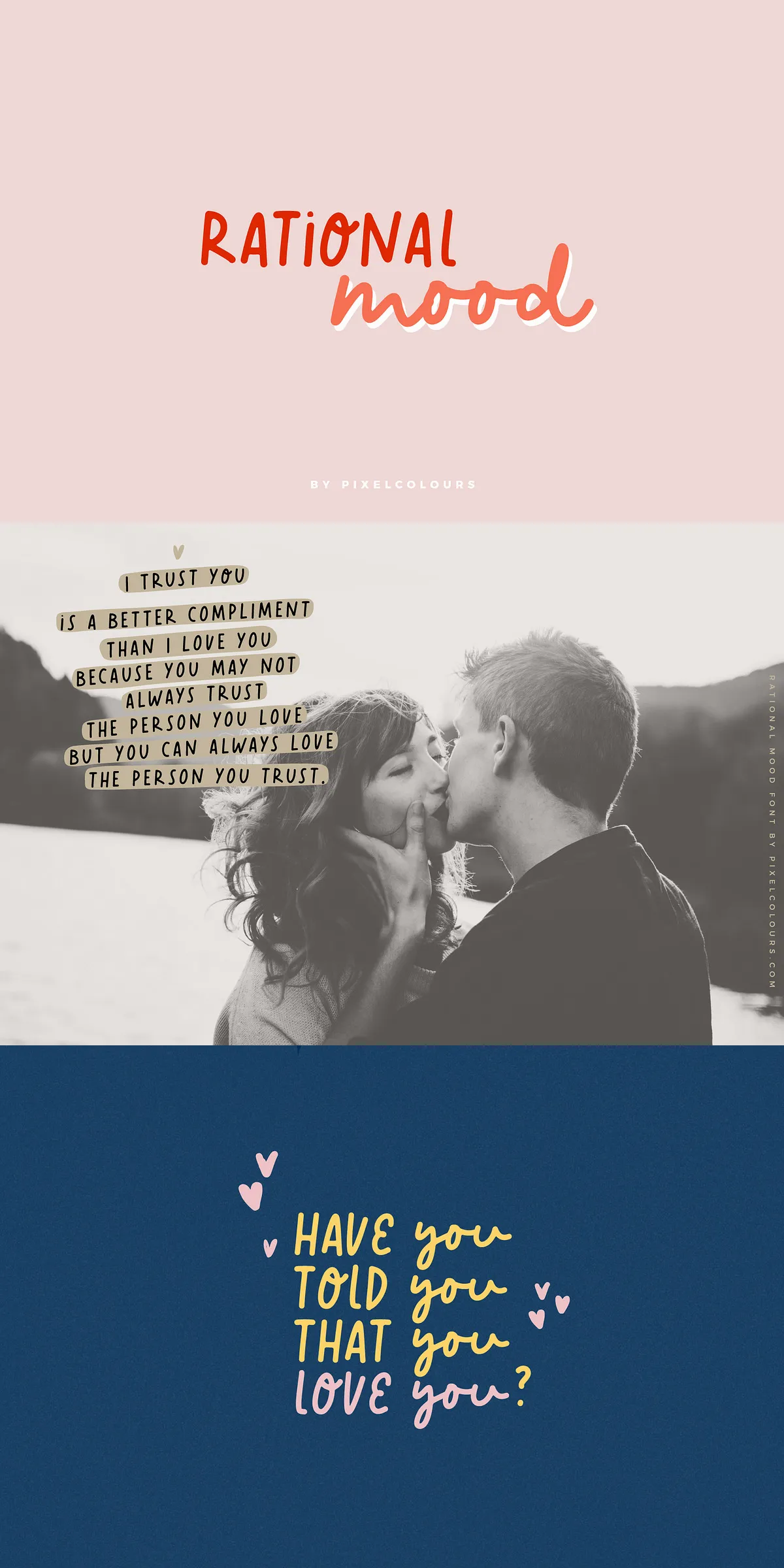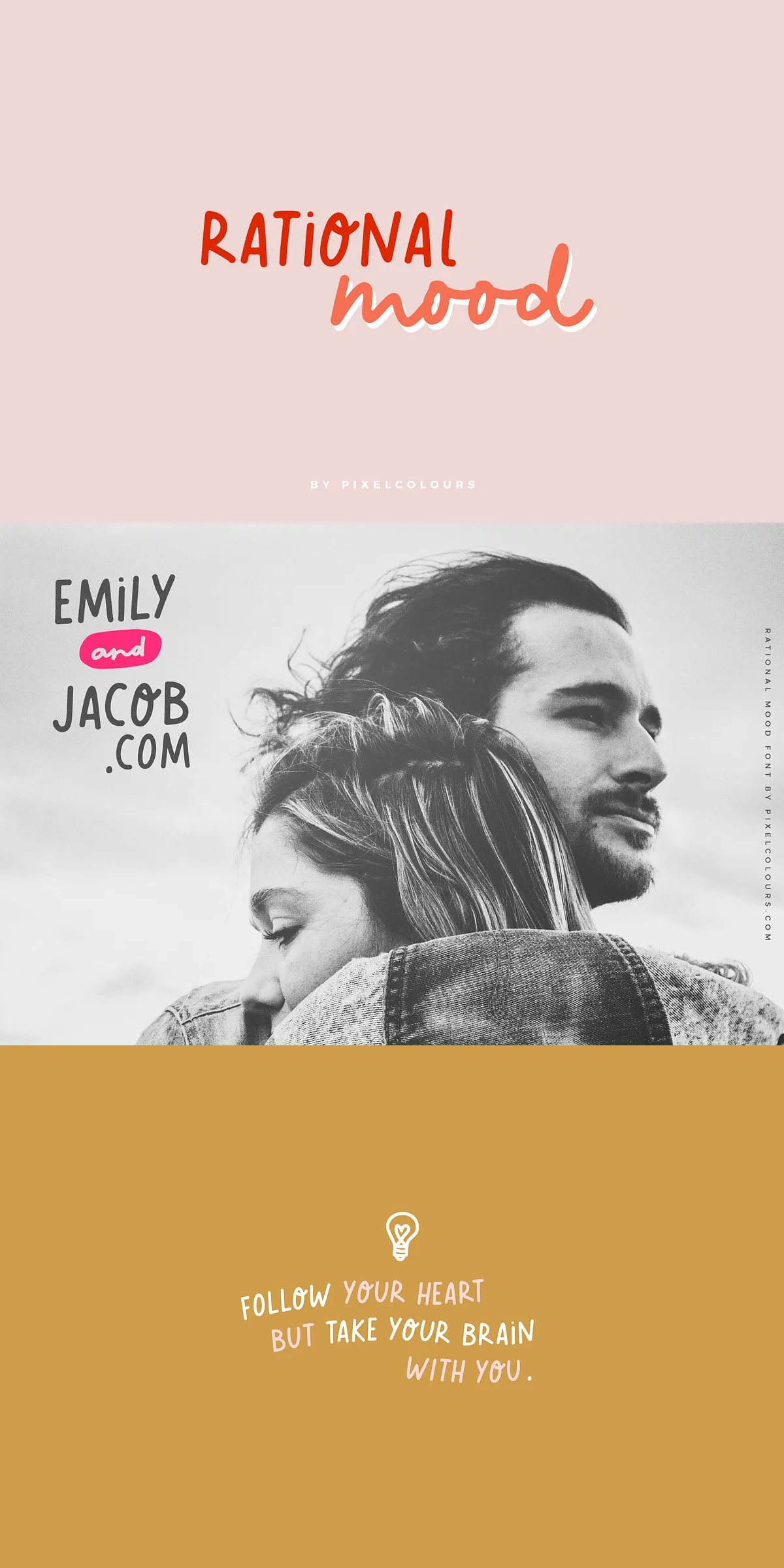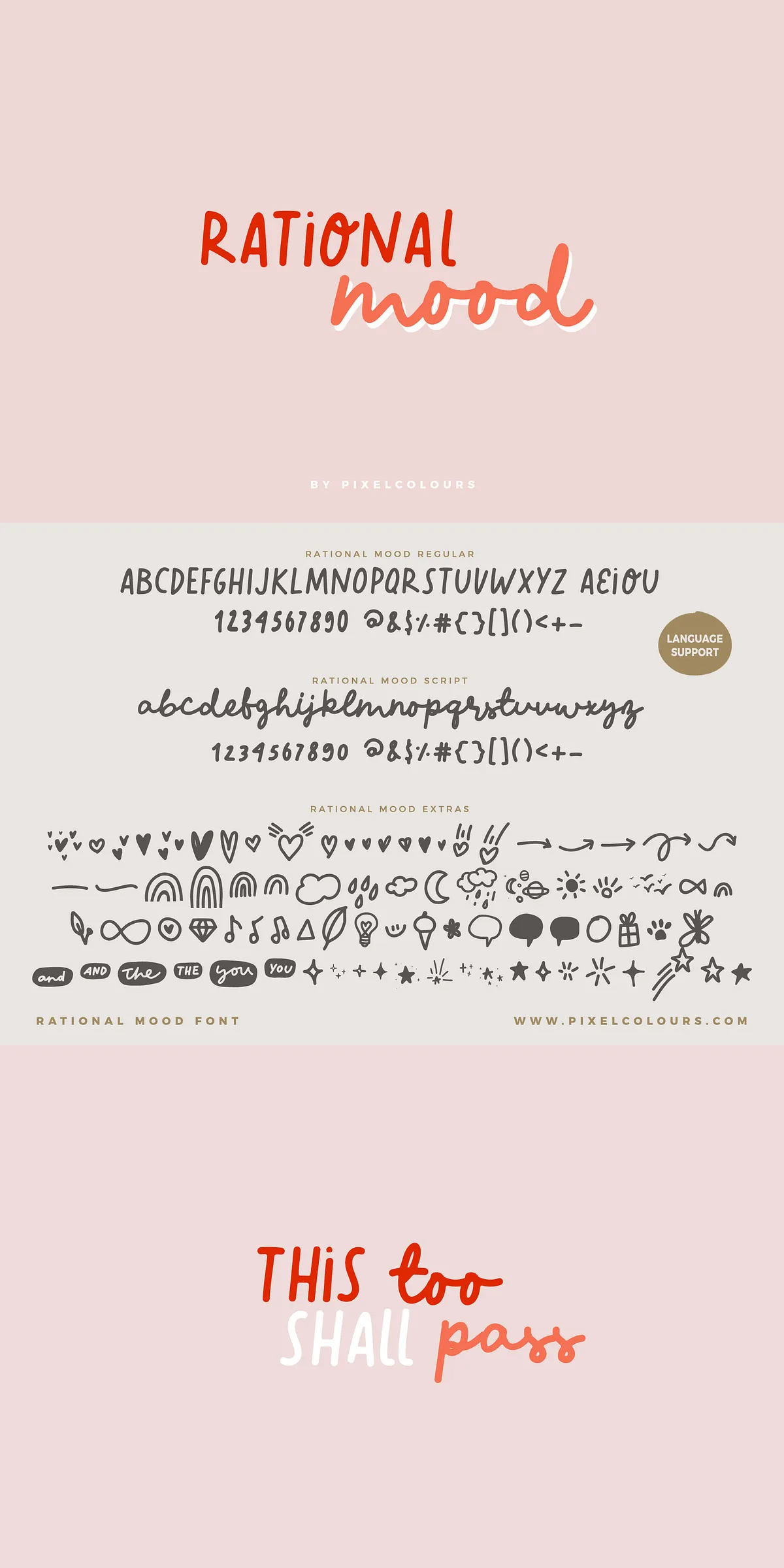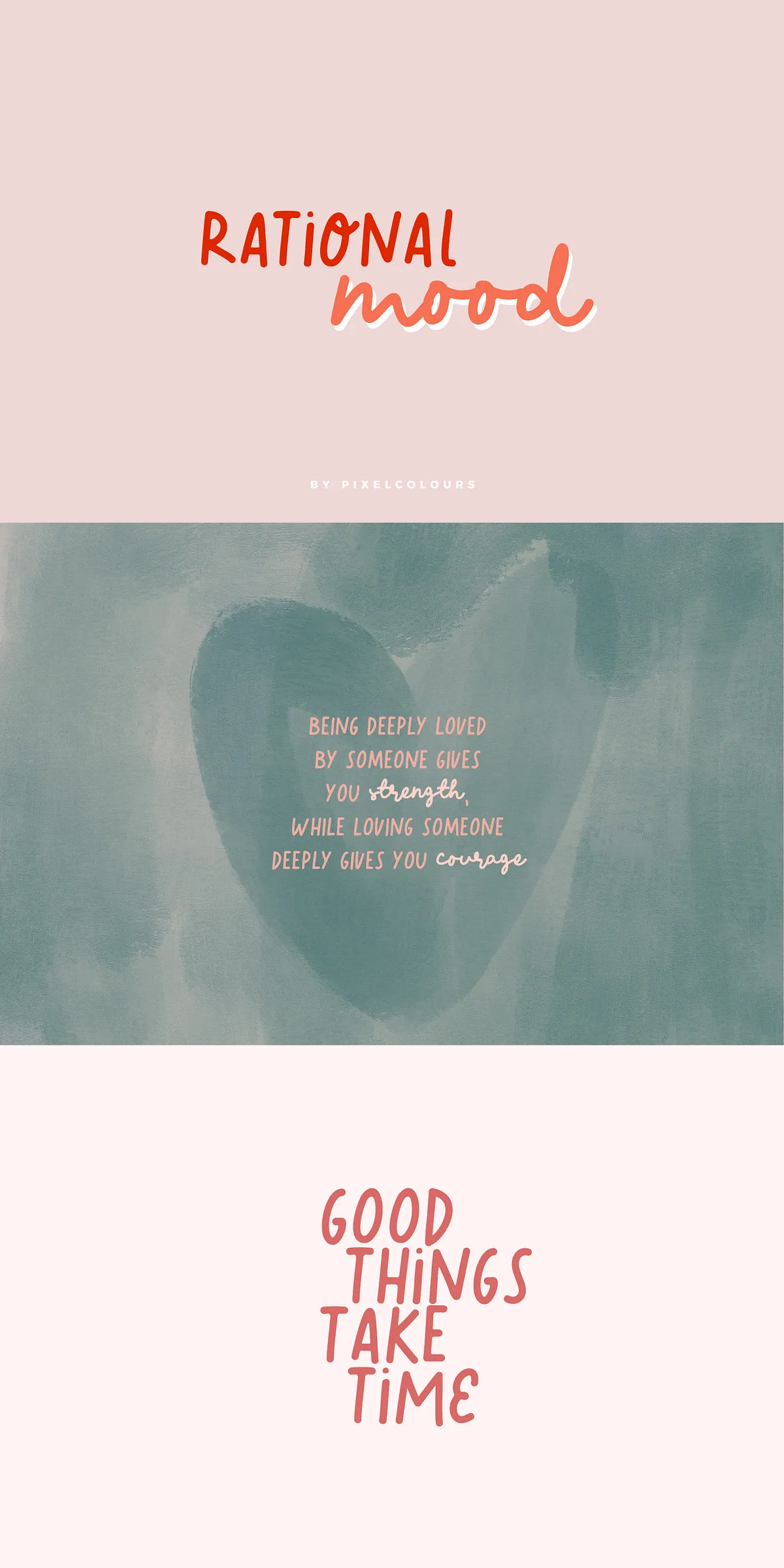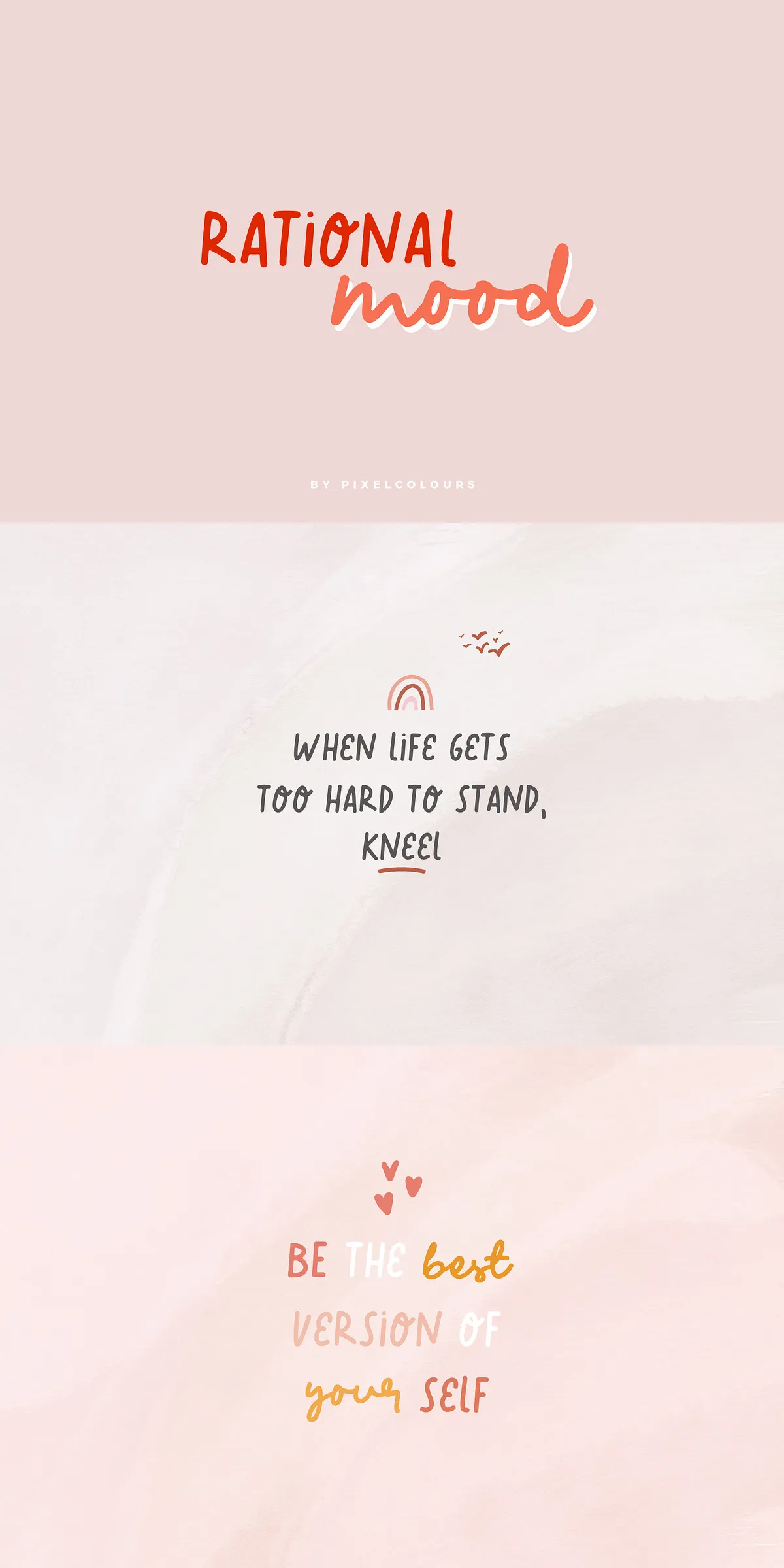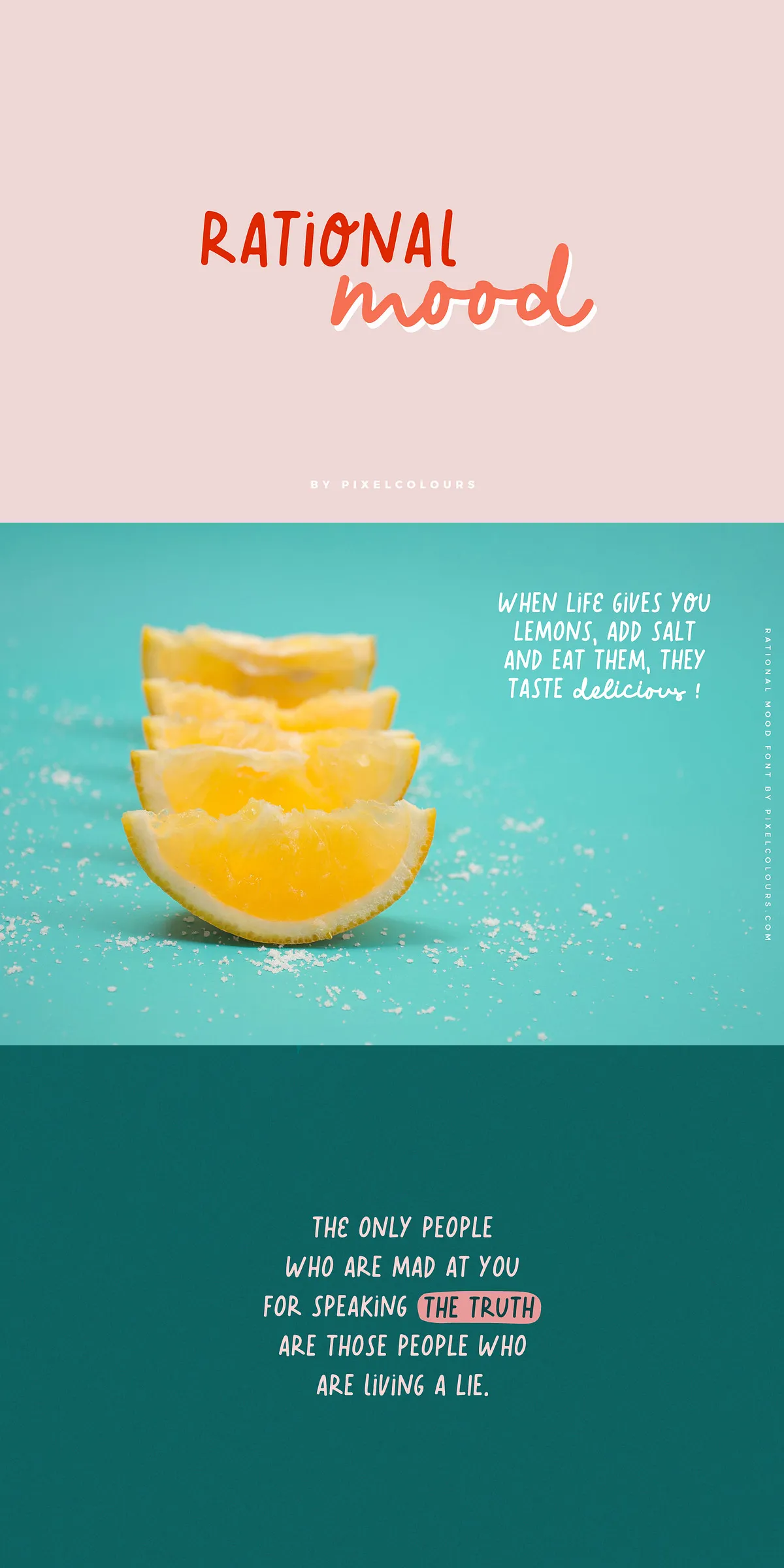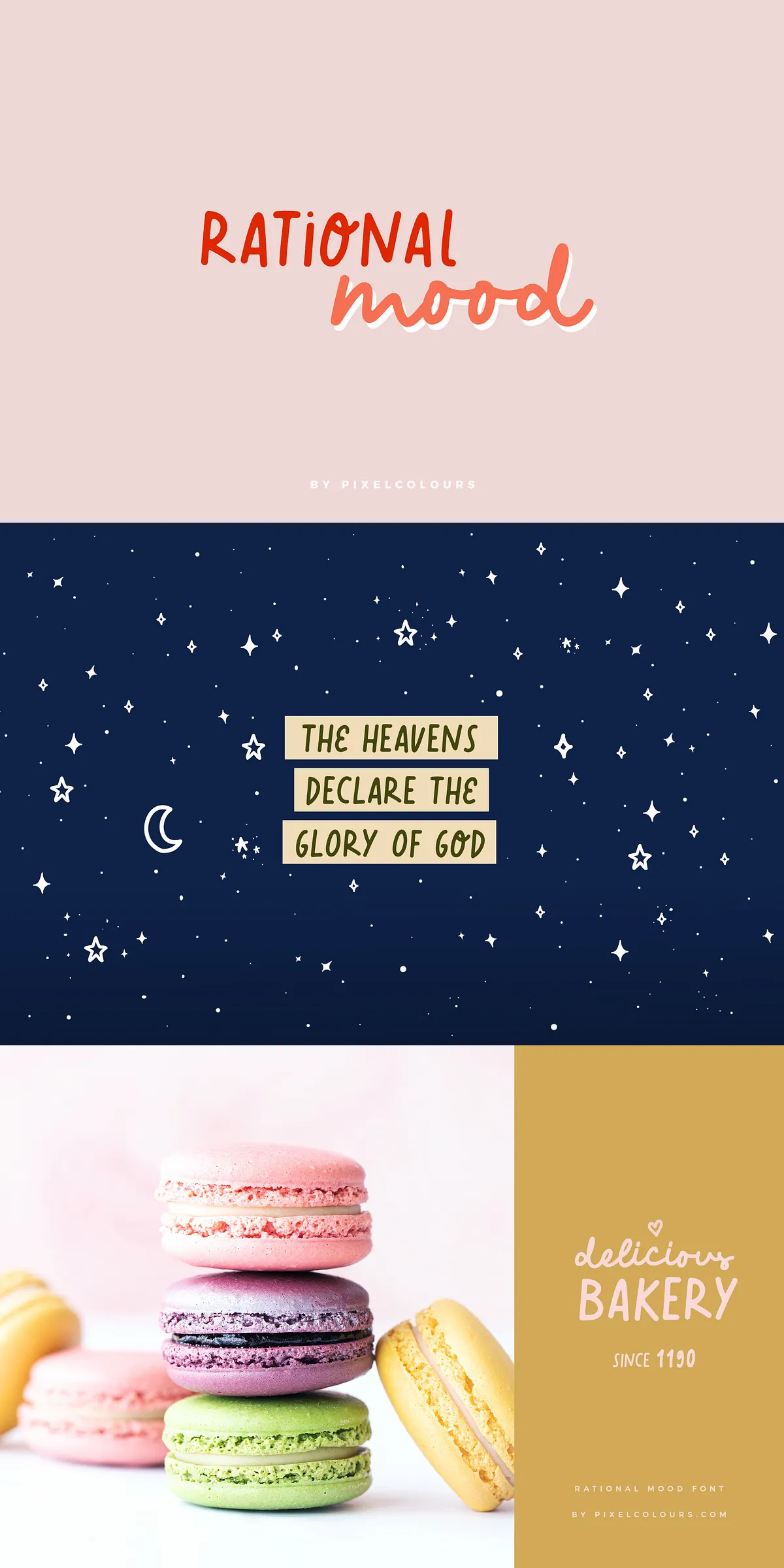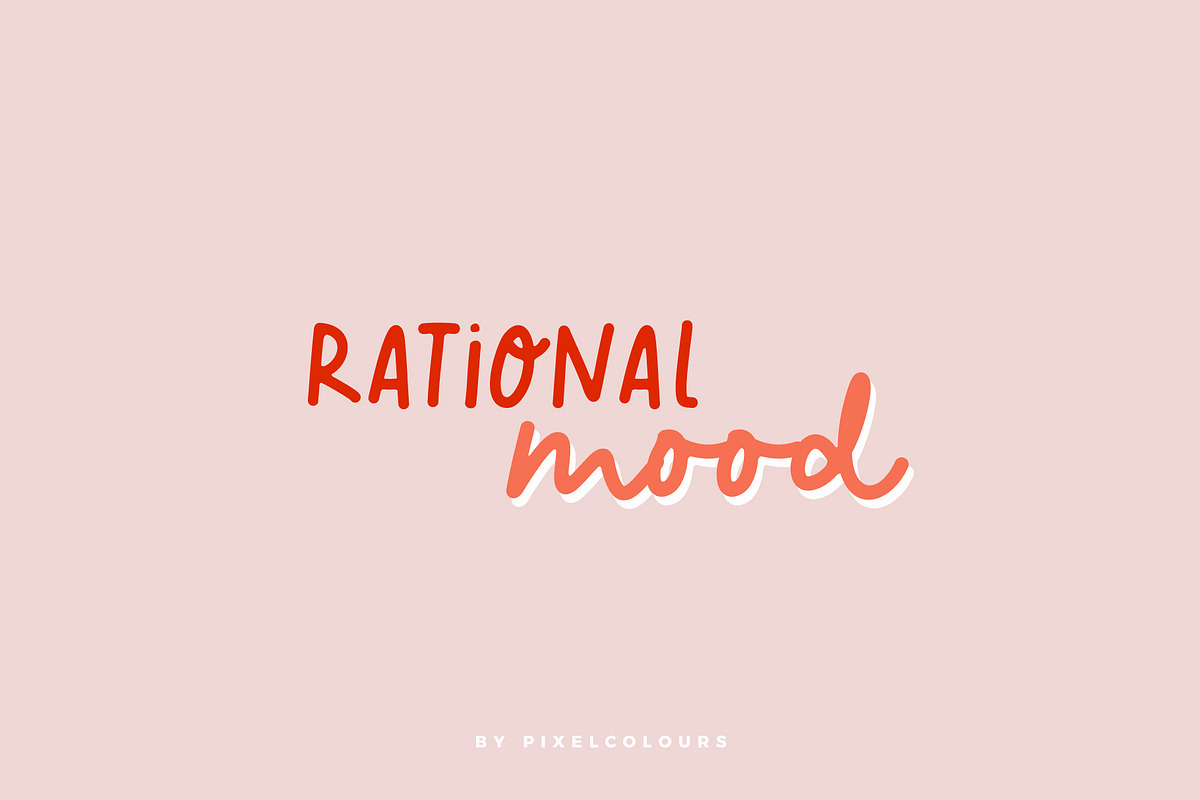
Script Font Rational Mood
Rational Mood Font presents a unique trio of handwriting styles that invigorate your design projects with charm and personality. This font collection combines an uppercase typeface, an elegant script, and a decorative dingbats set, providing creative professionals and hobbyists with a comprehensive toolkit. Whether you’re designing eye-catching social media posts, heartfelt quotes, or themed invitations, Rational Mood offers a dynamic range that enriches your visual content with warmth and creativity.
Explore the Three Distinct Fonts Within Rational Mood
The Rational Mood Font package features three individual fonts that deliver a wide range of expressive options. First, the Rational Mood Regular font offers a clean and bold uppercase style that commands attention while maintaining legibility. It’s an excellent choice for titles, headings, and branding elements where clarity meets style.
Complementing the uppercase font, the Rational Mood Script brings fluidity and natural curves typical of authentic handwritten script. This font injects elegance and softness, making it perfect for creative quotes, personal notes, and inviting text blocks that aim to connect emotionally with the audience.
Rounding out the trio, the Rational Mood Extras is a dingbats font loaded with cute and playful graphics to decorate and enhance your layouts. These illustrations add a delightful accent that pairs wonderfully with the other two fonts, creating cohesive and eye-catching designs.
Complete Character Set and Language Support
Designed to maximize usability, Rational Mood includes uppercase and lowercase letters, numbers, and punctuation marks that adhere to modern design standards. Additionally, it offers language support to accommodate a diverse range of users and projects. This comprehensive character set ensures you can confidently craft text in your preferred language without sacrificing style or function.
Ideal for Social Media, Quotes, and Playful Designs
Rational Mood Font excels in creating engaging and memorable content for contemporary digital platforms. Whether you’re designing inspiring Instagram posts, Pinterest quotes, or blog headers, this font trio provides both versatility and visual appeal. The interplay between the uppercase’s boldness and the script’s elegance allows you to tailor your message tone. Meanwhile, the decorative extras infuse your projects with spontaneity and fun, making every design visually refreshing and uniquely yours.
Flexible Use Cases Across Various Creative Projects
Beyond social media, Rational Mood adapts seamlessly across a variety of creative applications. Use it for greeting cards, invitations, logo design, packaging, or any project that benefits from a handcrafted and playful aesthetic. The font’s compatibility with major design software allows designers to integrate it smoothly into existing workflows, ensuring both efficiency and creativity in the production process.
Why Choose Rational Mood to Elevate Your Typography?
Choosing Rational Mood Font means embracing a powerful set of tools that combine clarity, elegance, and decoration in one package. The uppercase font asserts presence and structure; the script adds a personal, artistic touch; and the dingbats provide customizable decorative elements. This combination empowers designers to craft complete stories through typography and imagery, delivering designs that feel both professional and personable.
Ideal for those who want to enhance their visual communications with a handcrafted yet polished look, Rational Mood stands out as a font family that breathes life and emotion into text. Its versatility ensures it meets the needs of diverse projects while offering a fresh alternative to standard digital fonts.